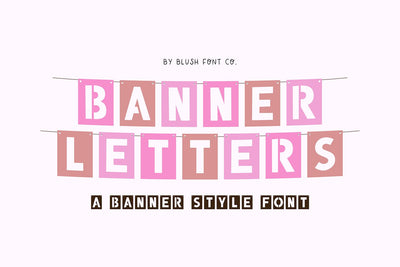
Banner Letters Party Sign Font
"Banner Letters" a sign banner font with stenciled letters and holes.
This font is a sign font with uppercase stenciled letters on a rectangular banner with holes. This functions like any other font. It is perfect for parties, classrooms, teachers, birthdays, and more! Enjoy!